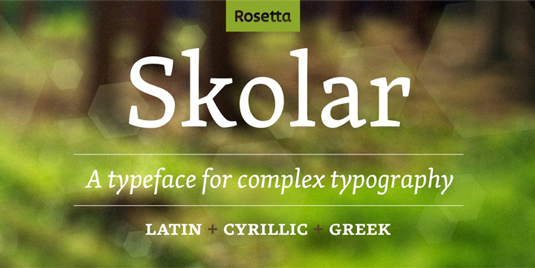
Greatest fonts countdown: 64 - Skolar
64. Skolar
Skolar was originally designed for academic publications. With a vast character set that caters for 90-plus Latin-script languages, and its Greek and Cyrillic extensions (together with Latin transliterations adding support for another 70-plus languages) Skolar is a comprehensive typeface.
According to the designer, "Skolar's letterforms follow conventional proportions, while its styling and modulation give character in the details. Features such as its large x-height, robust serifs and low contrast make Skolar a reliable choice even at small sizes". It's published by the Rosetta type foundry.